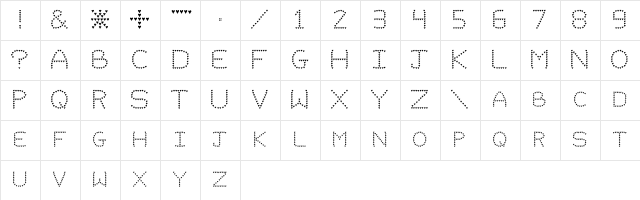
Evelyns Heart Regular
Design Context for Evelyns Heart
Evelyns Heart is a composed and adaptable typeface that performs quietly and consistently across a wide range of design contexts.
Pro Tip: Use Evelyns Heart in both headline and body roles to test its range before committing to a single application.